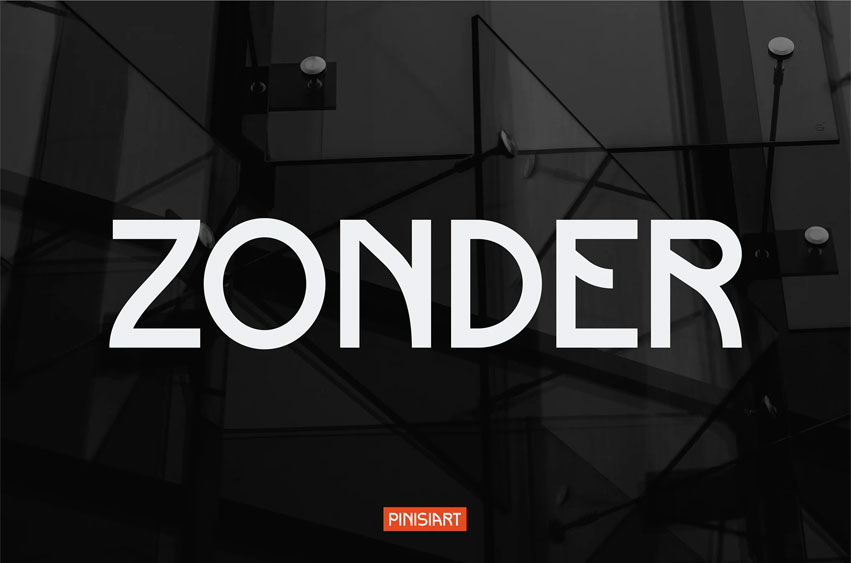
Zonder Font
Zonder Font is a bold geometric display typeface that combines modern proportions with sharp structural balance. Its clean terminals and uniform weight create a strong visual presence, ideal for brands that value clarity and authority. Designed with a contemporary industrial vibe, ZONDER thrives in editorial spreads, tech-driven campaigns, and high-impact business presentations. Its character set is minimal yet commanding, making it a perfect choice for designers seeking professional strength with versatile usability.
From branding identities to editorial layouts, ZONDER adapts seamlessly to digital platforms, print materials, and corporate communications. Its confident geometry brings a sense of progressive innovation, making it especially appealing for tech companies, architectural firms, modern startups, and creative agencies. Whether you need attention-grabbing headlines, clear signage, or sharp marketing visuals, ZONDER ensures your message carries authority and forward-thinking energy.
• Geometric balance for modern, structured layouts
• Clean readability at large and medium sizes
• Versatile usage across branding, poster design, digital interfaces, and signage
• Bold character flow that communicates innovation and trust
• Professional structure with sharp precision for impactful storytelling